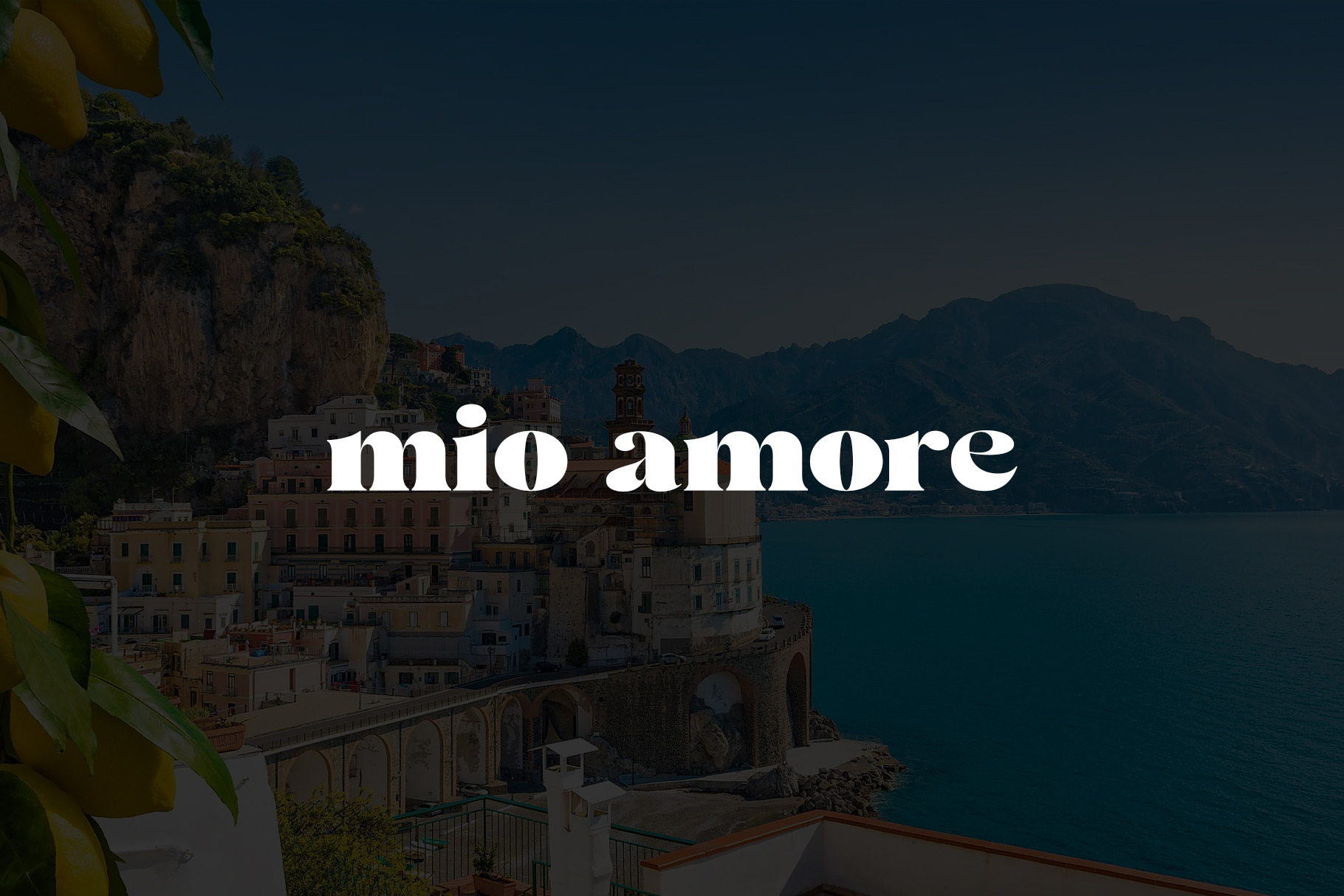
Italian summer font - Valery
VALERY - LOVE AS ITALIAN
Valery is a beautiful high fashion font duo that makes for gorgeous logos, posters, wedding invitations, blog posts, social media, and more!
This font belongs to the Amalfi font family, created a few years ago.
Give life to your style with this Italian font.